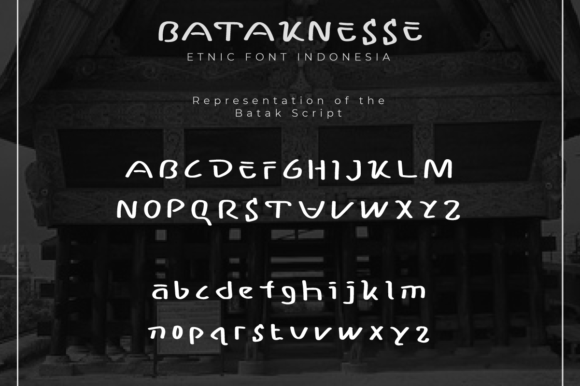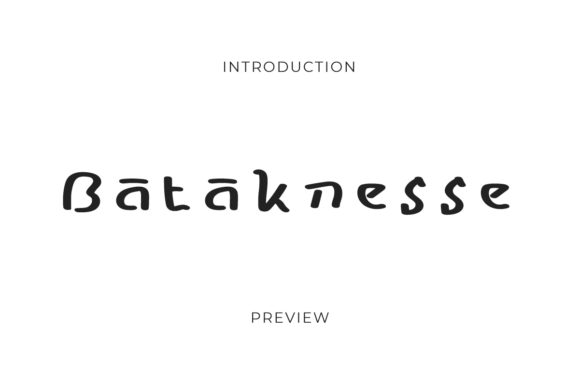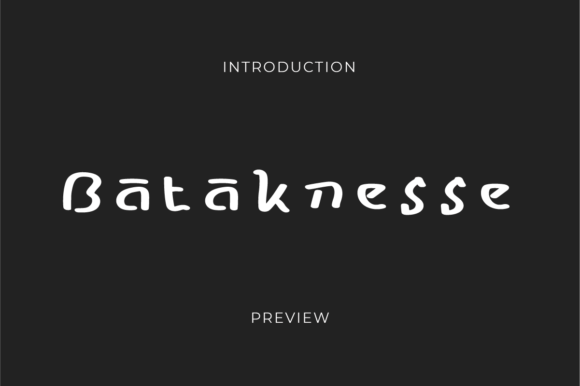
Discover the Unique Charm of Bataknesse Font
Have you ever stared at a blank page, struggling to find the perfect font to bring your creative vision to life? I know I have! It’s that moment when everything feels stagnant, and you just need a spark to ignite your imagination. That’s when I stumbled upon the Bataknesse Font, and it completely transformed my design process.
Bataknesse Font is an ethnic Indonesian font inspired by the Batak script, a beautiful and intricate writing system that has been passed down through generations. This font is not just a design element, but a piece of cultural heritage that adds a unique touch to any project. For designers, Bataknesse Font offers a valuable opportunity to add depth and authenticity to their work, making it stand out from the crowd.
Bataknesse Font Key Features
- Font Family: Bataknesse is a unique font with a blend of traditional and modern elements.
- Unique Characteristics: Bataknesse features a distinctive, cursive script with a mix of rounded and angular shapes, making it ideal for creative and artistic projects.
- Language Support: Supports a wide range of languages, including Latin, Cyrillic, and Greek alphabets, making it suitable for international applications.
Bataknesse Font Review
Overall, I have mixed feelings about the Bataknesse Font. While it has some interesting aspects, it also falls short in a few areas.
- Unique Character: Bataknesse Font offers a unique character that can add a touch of personality to designs. It’s perfect for those who want to stand out from the crowd.
- Good for Display Text: The font is well-suited for display text, such as headings and titles. It’s bold, attention-grabbing, and easy to read from a distance.
- Limited Legibility: In smaller sizes, the font can become quite difficult to read. This is a significant limitation, especially for body text.
- Not Suitable for Large Blocks of Text: Due to its bold and ornate design, Bataknesse Font is not ideal for large blocks of text. It can become overwhelming and difficult to read.
Overall, I think Bataknesse Font is a good choice for designers who want to add a touch of personality to their designs, but it’s not a go-to font for everyday use. It’s perfect for headings, titles, and display text, but may not be the best choice for body text or large blocks of text.
Tips: Use the Bataknesse Font for titles and headings to add a touch of elegance. Experiment with different font sizes and colors to create a visually appealing design.
Tips: Use the Bataknesse Font for custom typography projects, such as creating unique logo designs or typography-based art.
Tips: Use the Bataknesse Font for presentations, reports, and documents where you want to add a touch of sophistication.
The Bataknesse Font is suitable for various design projects, including:
- Logo designs and branding
- Typography-based art and illustrations
- Choose a soft, pastel color palette to complement the whimsical feel of the font.
- Use the font for the main title, “Love is in the Air,” and pair it with a elegant script font for the details.
- Add a touch of magic with intricate illustrations and watercolor effects.
- Pair the Bataknesse Font with a delicate floral pattern for a romantic touch.
- Use a combination of serif and sans-serif fonts to create a visually appealing hierarchy.
- Choose a distressed wood texture as the background to give it a rustic feel.
- Use the font for the menu items, such as “Freshly Baked Muffins” and “Artisanal Coffee.”
- Add a vintage touch with old-fashioned illustrations and hand-drawn graphics.
- Pair the Bataknesse Font with a bold, sans-serif font for the prices and headings.
Unique Design Projects with Bataknesse Font
Create a magical and romantic wedding invitation that stands out from the rest with the Bataknesse Font.
Project 2: Rustic Cafe Menu Board
Bring a touch of warmth and coziness to your rustic cafe with the Bataknesse Font.